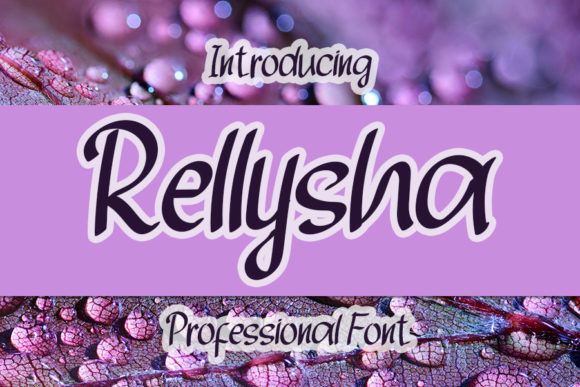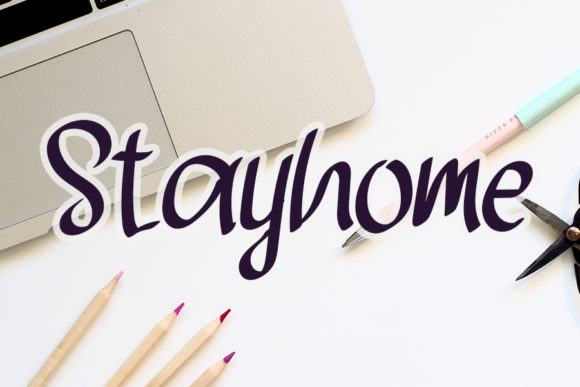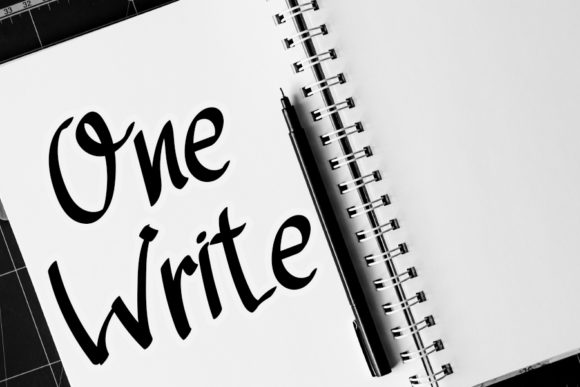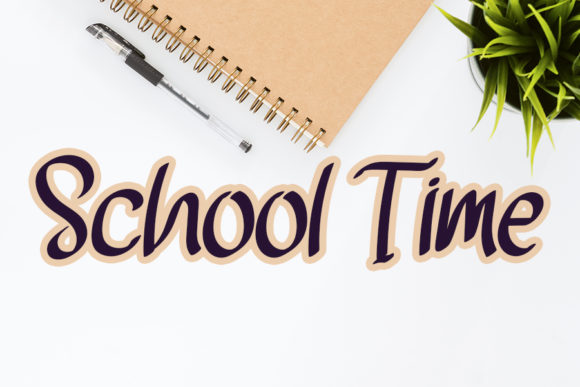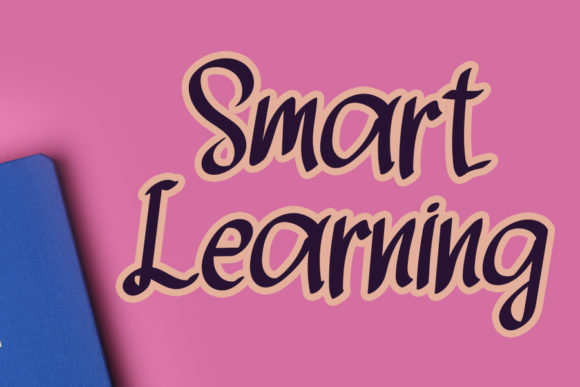
Rellysha Font
About Rellysha Font
Rellysha is a casual and relaxed script font. Fall in love with its beautiful and distinct style and use it to create gorgeous wedding invitations, beautiful stationary art, eye-catching social media posts, and much more!